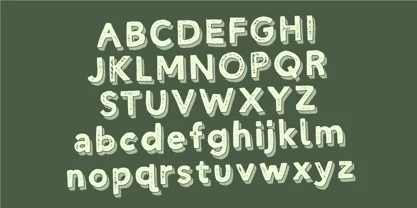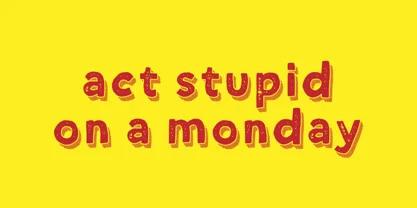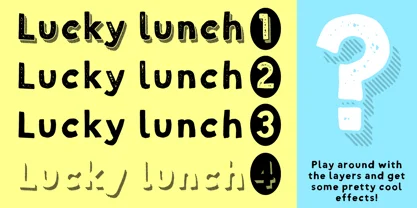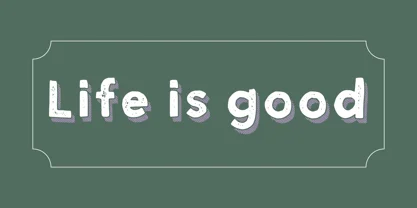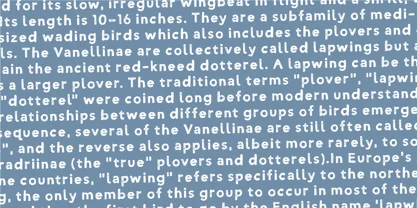
Lucky Lunch Font
Few typefaces manage to balance controlled contrast that rewards close inspection with genuine day-to-day practicality. Lucky Lunch is one of them. The typeface brings a versatile sensibility to a broad range of creative disciplines, with strong typographic hierarchy support that holds up whether the work is print-first or screen-first.
In practice, Lucky Lunch proves particularly effective for editorial layouts, advertising campaigns, packaging design, annual reports, poster creation. Designers reaching for it find that the type decisions feel resolved rather than laboured — a useful quality when client timelines are tight.
The range of applications extends to brand identity systems, product labels, web design, signage systems. That breadth is deliberate: the proportions and spacing were stress-tested across a wide range of mock briefs before the typeface was finalised.
Lucky Lunch sits comfortably alongside both classic and contemporary typefaces in multi-font hierarchies. It takes direction rather than competing for attention — a quality that experienced designers know is harder to find than it appears.
Art directors commissioning type-led campaigns find Lucky Lunch a reliable choice for projects that demand both personality and restraint. The design avoids the self-conscious quirkiness that dates quickly, settling instead for considered distinctiveness that holds up over time.